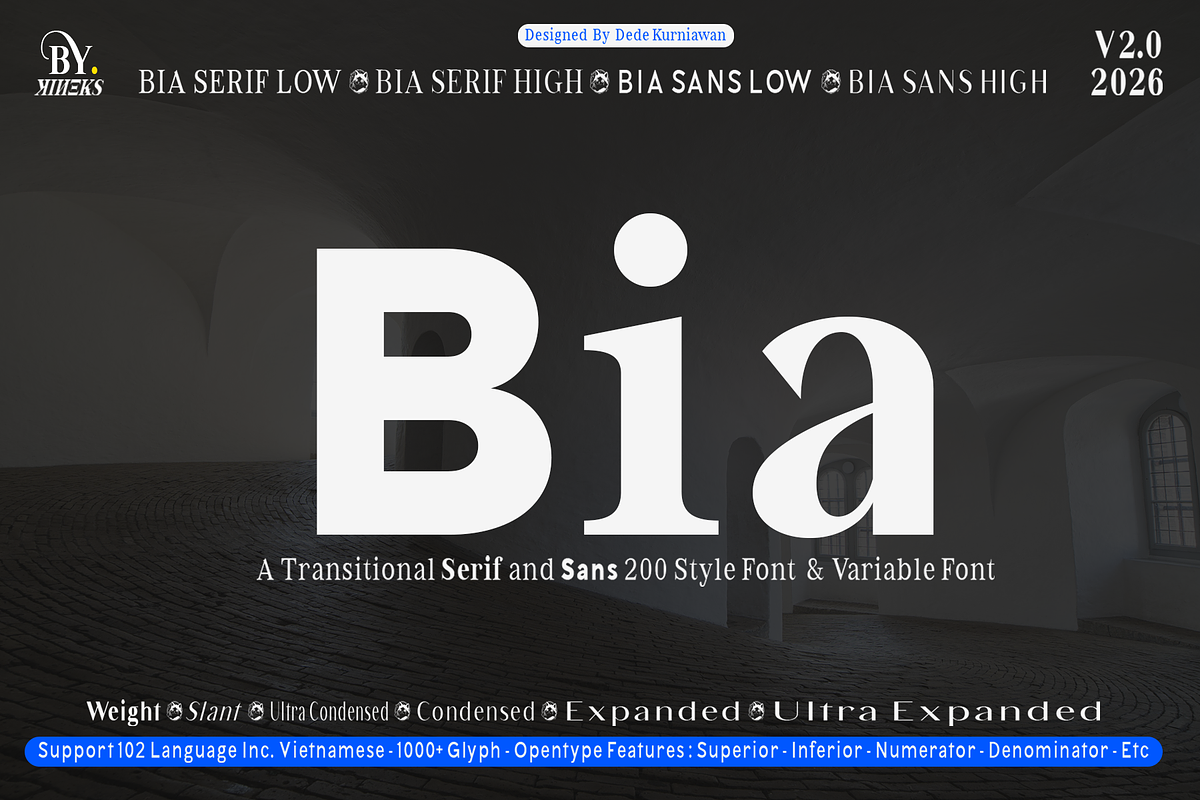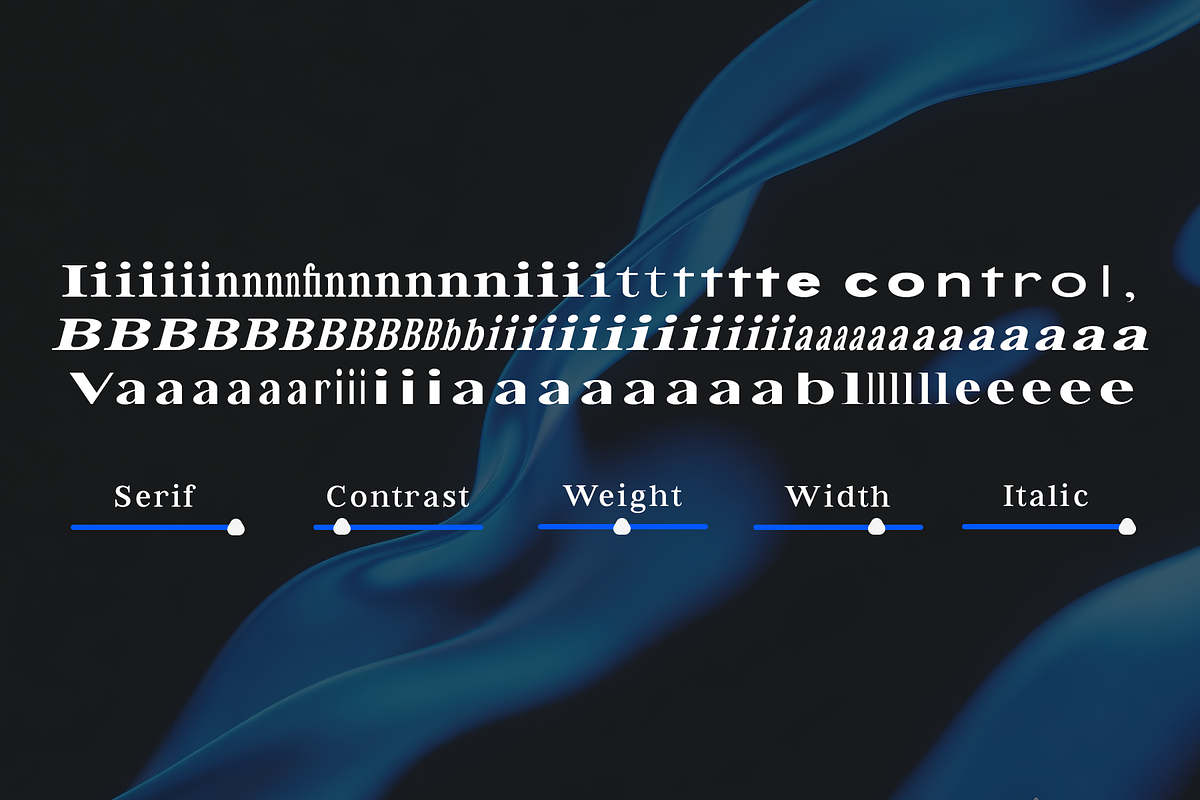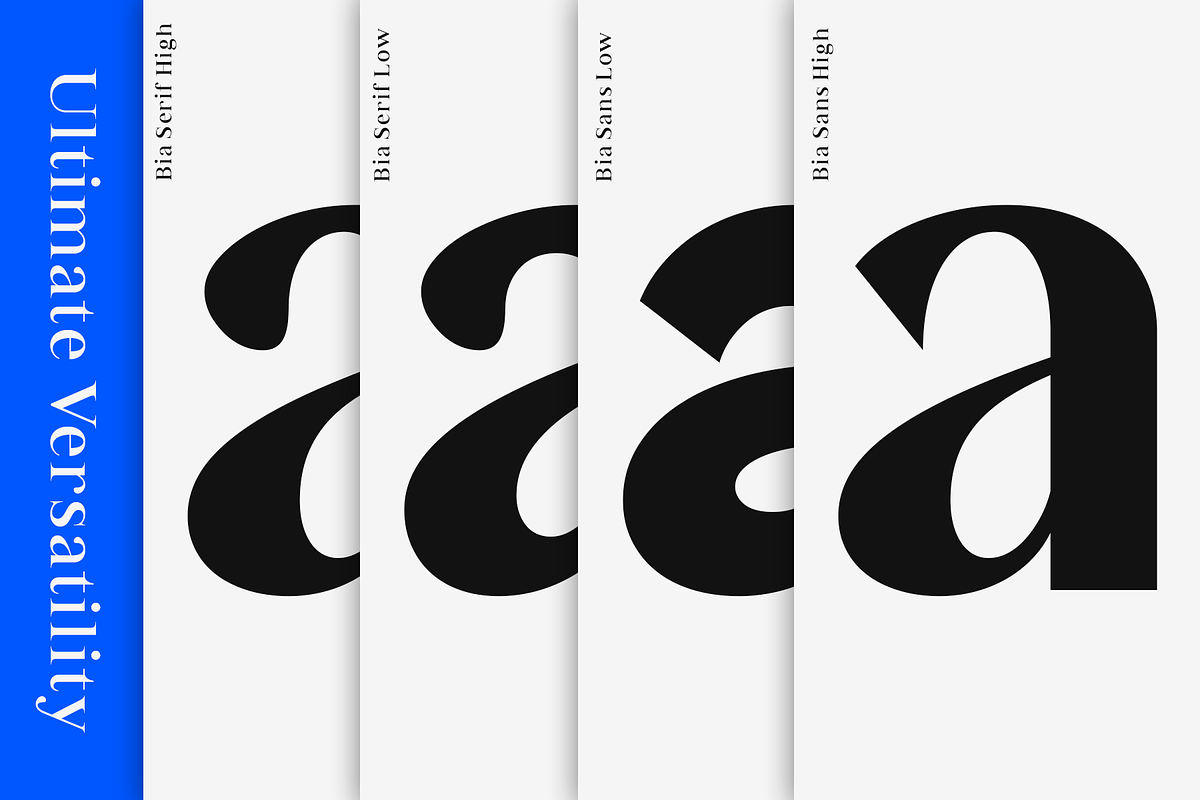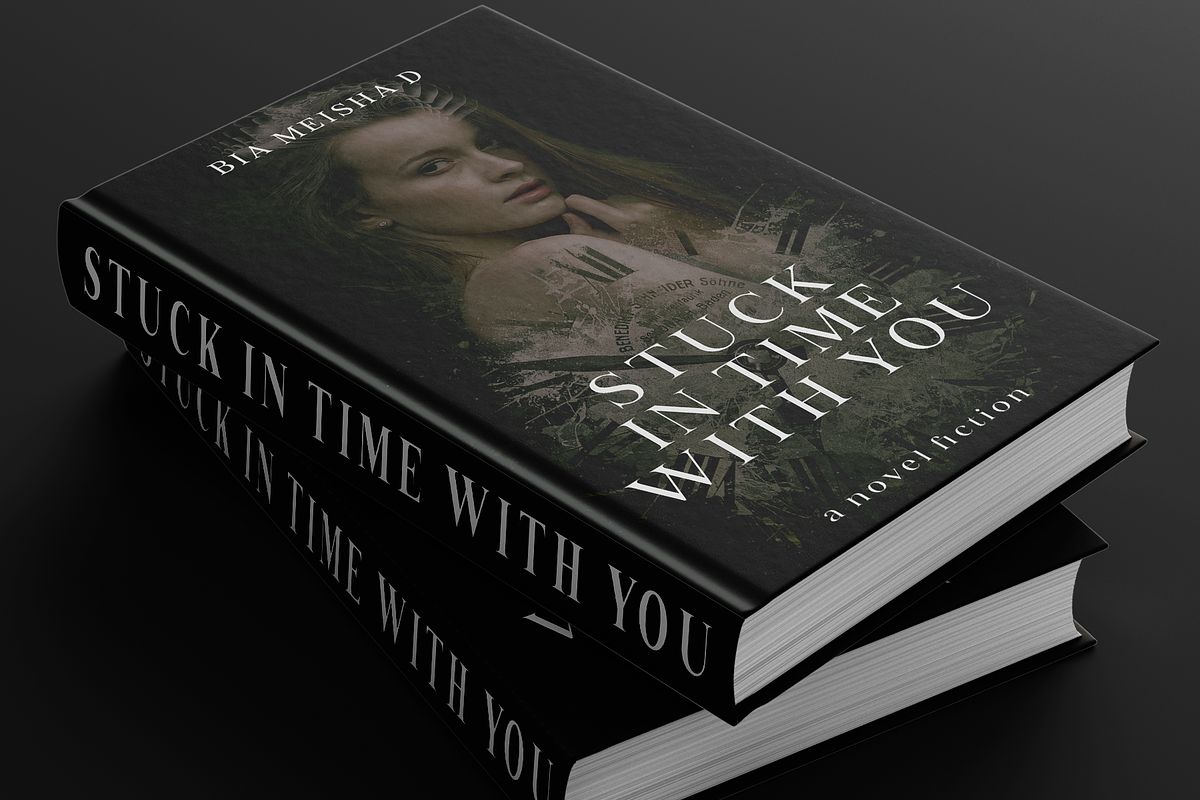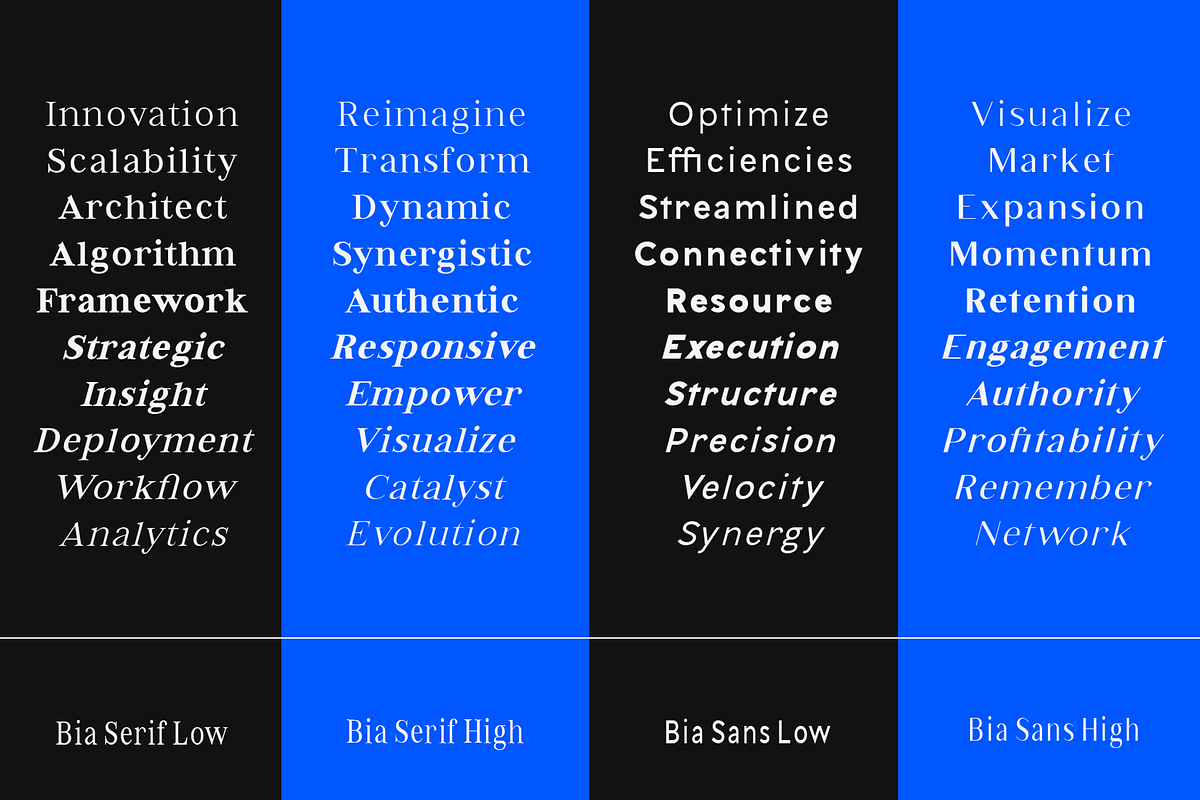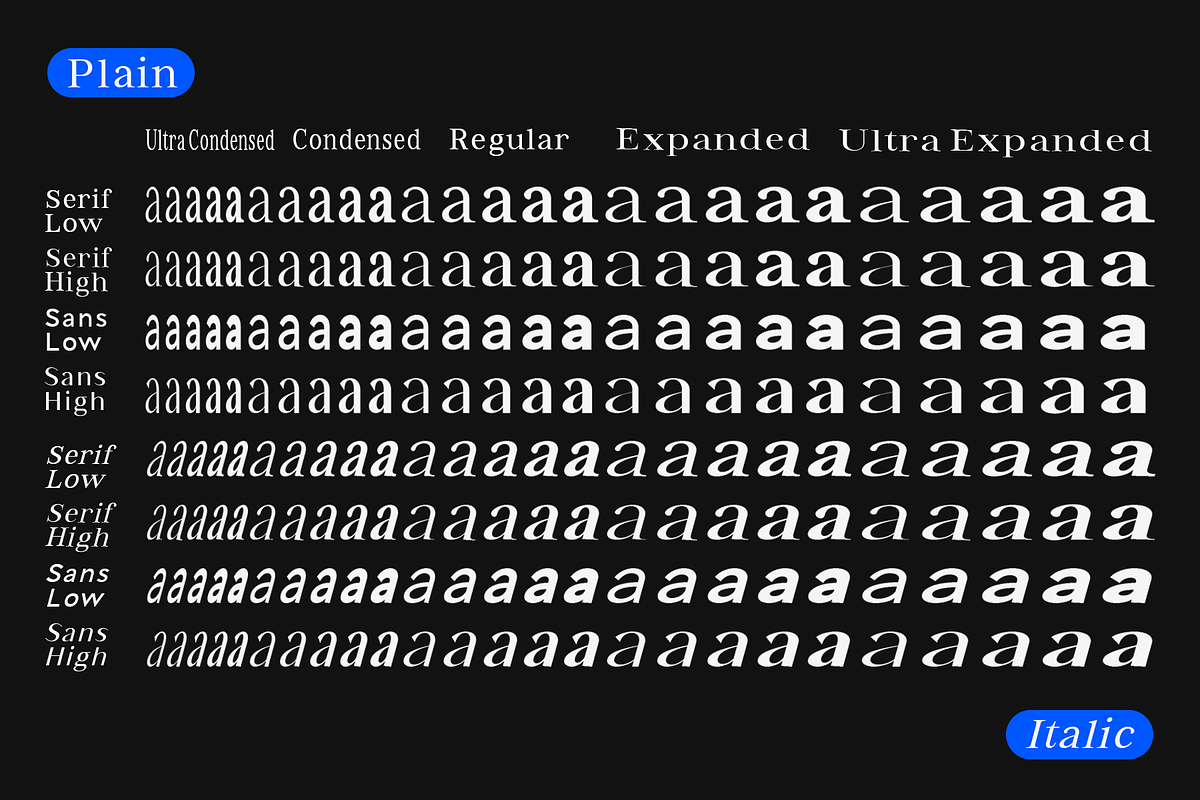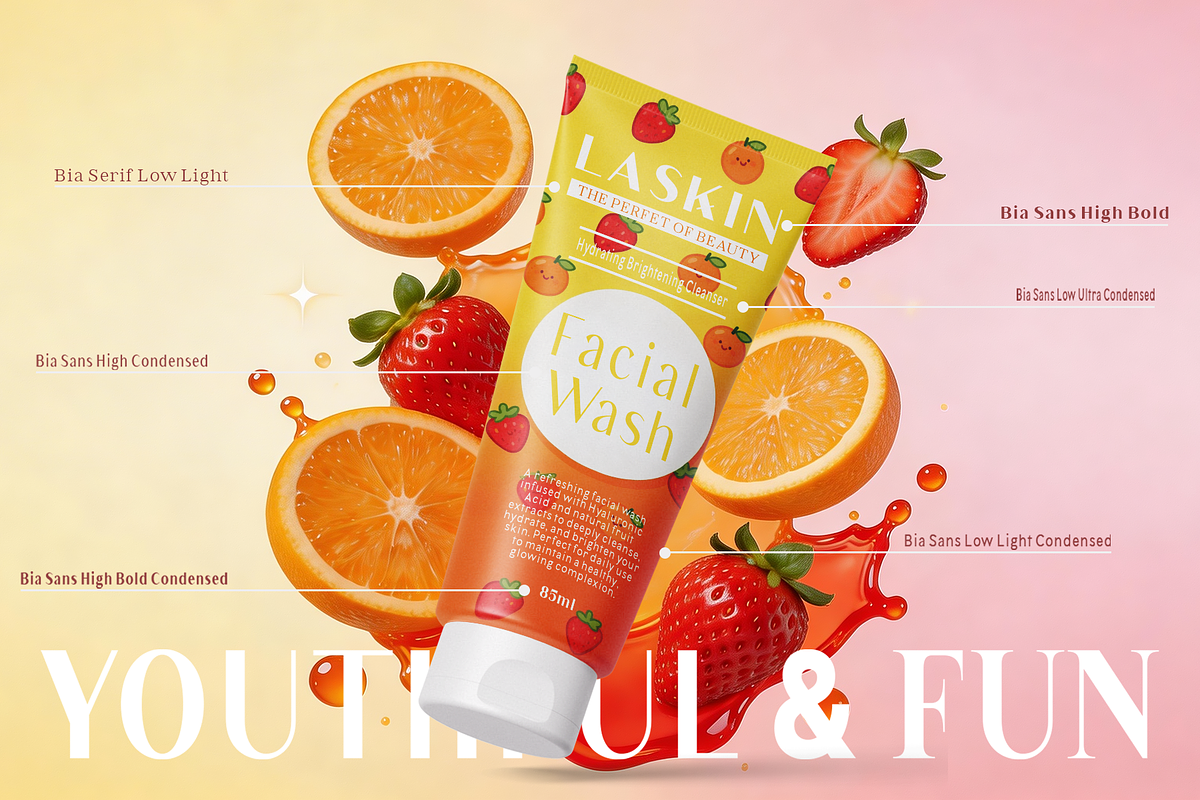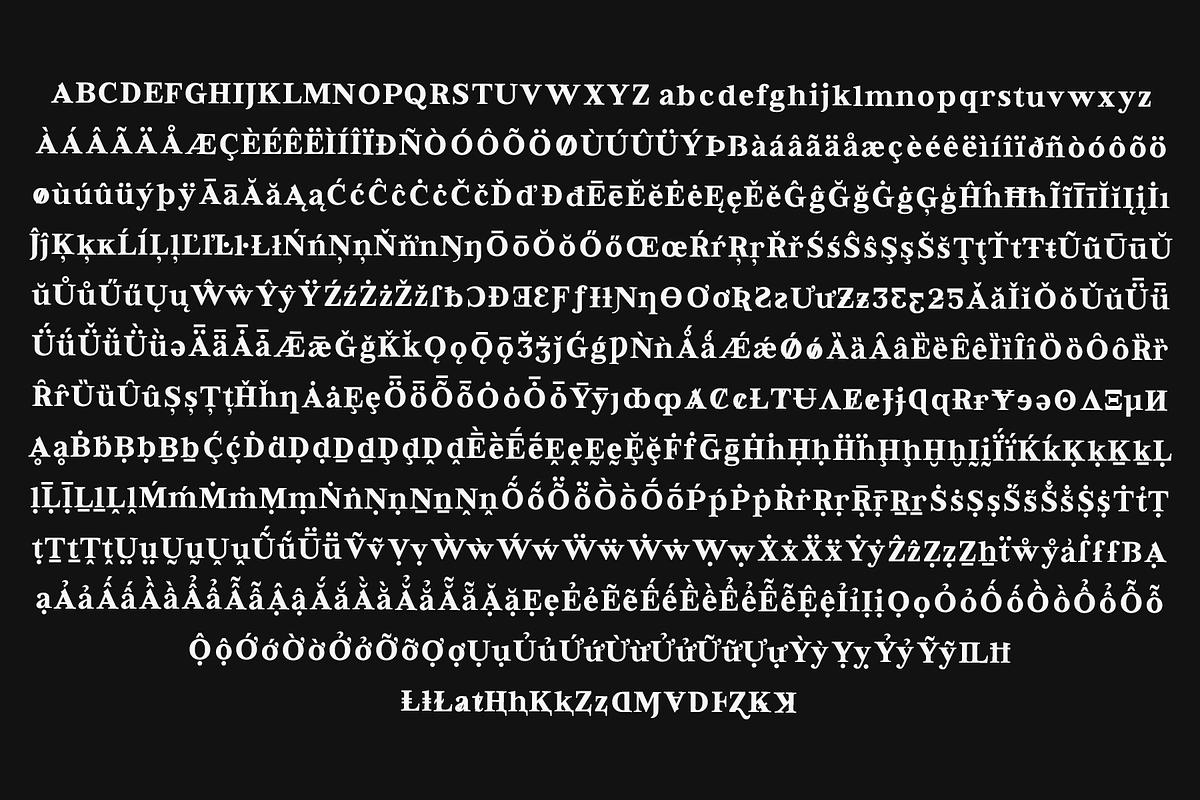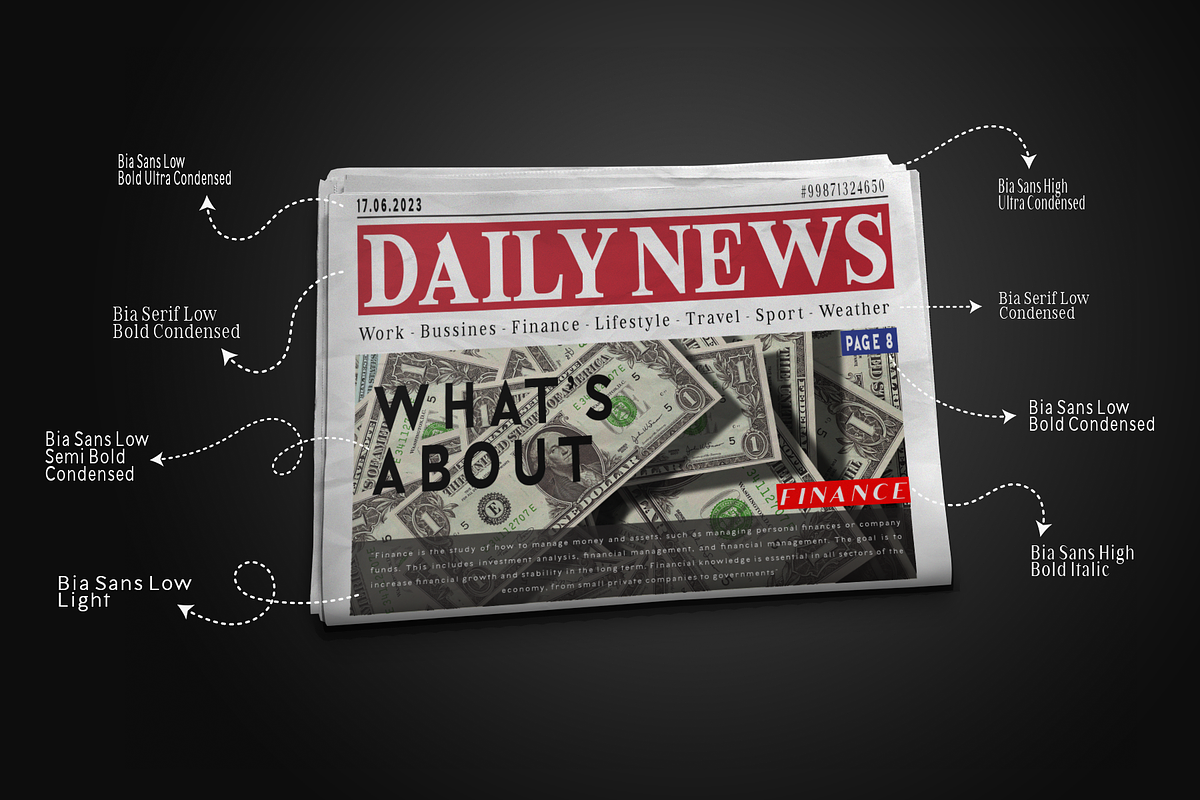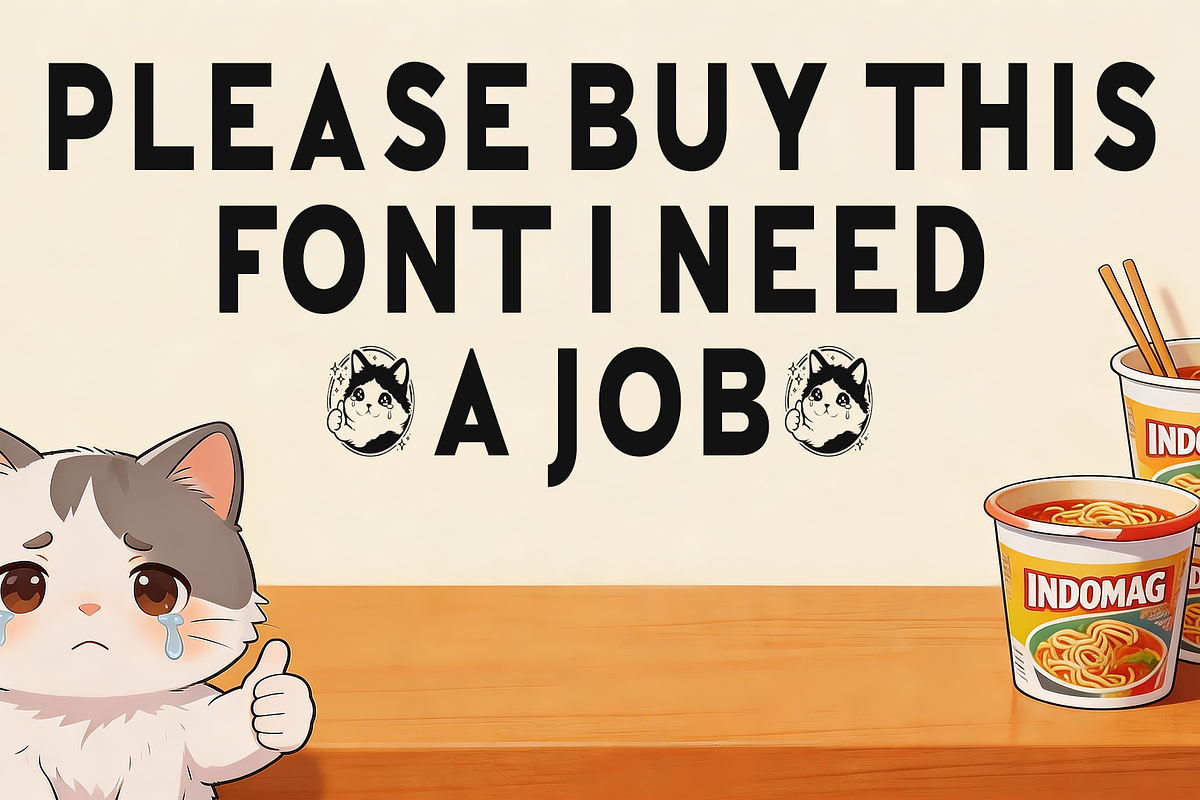
Bia | Transitional Serif & Sans
Bia Superfamily 2.0 – Redefining Transitional Versatility
Introducing Bia Superfamily 2.0, the ultimate evolution of the transitional typeface by Bykineks, designed by Dede Kurniawan. This major update transforms the original 2023 release into a comprehensive design system, blending timeless serif elegance with modern sans-serif functionality.
What’s New in Bia 2.0?
This version represents a massive technical leap, rebuilt from the ground up to provide a limitless design experience:
Massive Style Expansion: Now featuring a staggering 200 font styles, doubling the variety from the original version.
Variable Font Technology: Now includes Variable Font support, giving you fluid control over weight, width, and slant in a single, powerful file.
Four Optical Classifications: Expertly crafted variations in Serif Low/High (Contrast) and Sans Low/High (Contrast) for perfect legibility at any scale.
Global Language Support: Expanded from 85 to 102 languages, including full support for Vietnamese and Latin Pro.
Professional Glyph Library: Over 1000+ glyphs per style, meticulously engineered for complex editorial and branding needs.
Versatility for All Projects
Bia 2.0 is the all-in-one solution for high-end creative work: Ideal for Luxury Branding (skincare, perfume, jewelry), Editorial Design (newspapers, book covers, magazines), Wayfinding (airport and hotel signage), Web Design, and Bespoke Stationery (wedding invitations and luxury packaging).
Why Choose Bia 2.0?
This version builds upon the solid 2023 foundation with significant enhancements:
From 100 to 200 Styles: Double the creative possibilities within a single typeface family.
Full Width Spectrum: Six distinct widths including Ultra Condensed, Regular, Expanded, and Ultra Expanded.
Advanced OpenType Features: Full support for Numerators, Denominators, Inferiors, Superiors, Modern Figures, and Oldstyle Figures.
The Best of Both Worlds: Seamlessly transition between the sophisticated character of a Serif and the clean, modern look of a Sans.
Elevate Your Designs
Whether you are designing a high-impact signage system or a delicate luxury label, Bia Superfamily 2.0 delivers the technical precision and modern sophistication your projects demand.
Step into the future of typography with Bia 2.0 and let your designs stand out effortlessly.